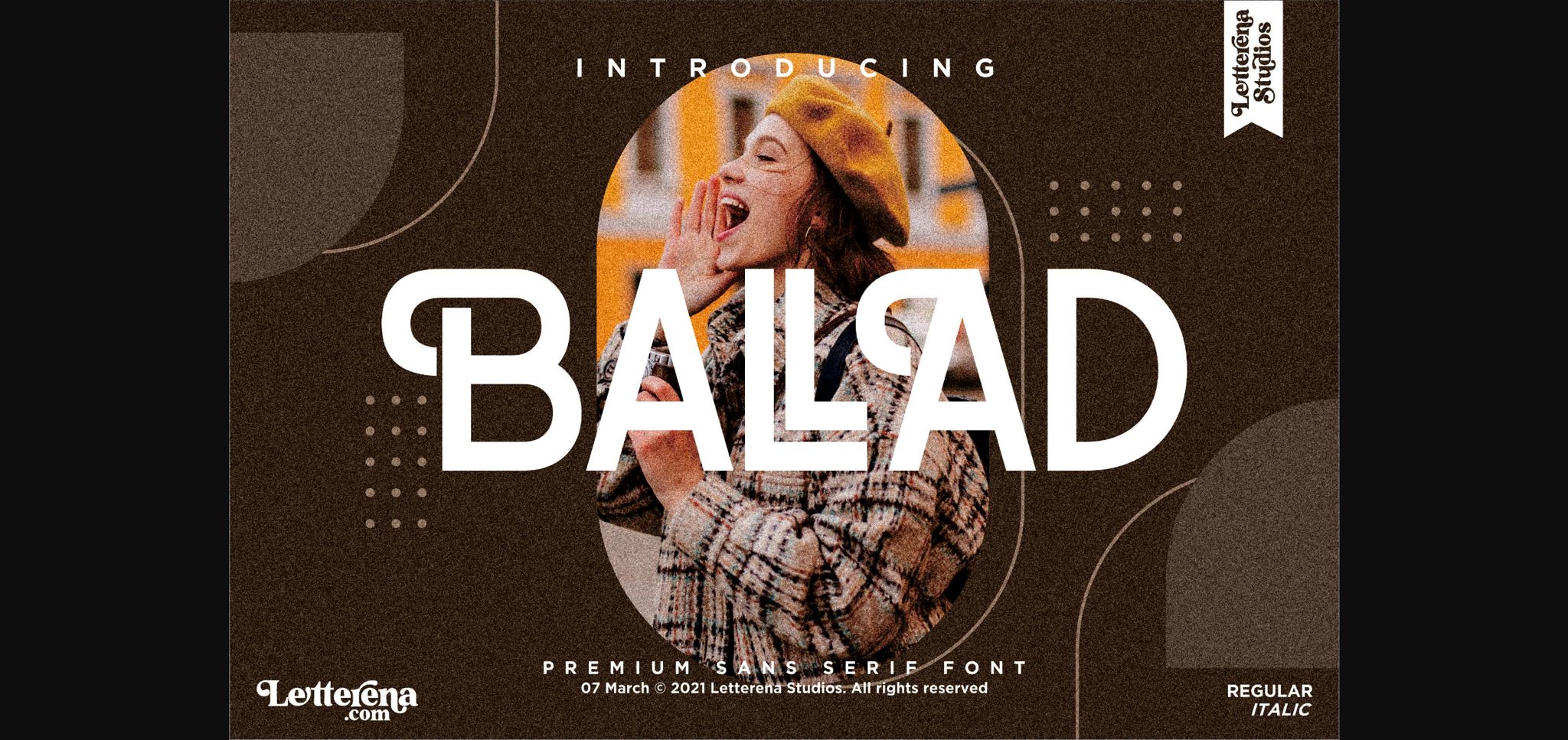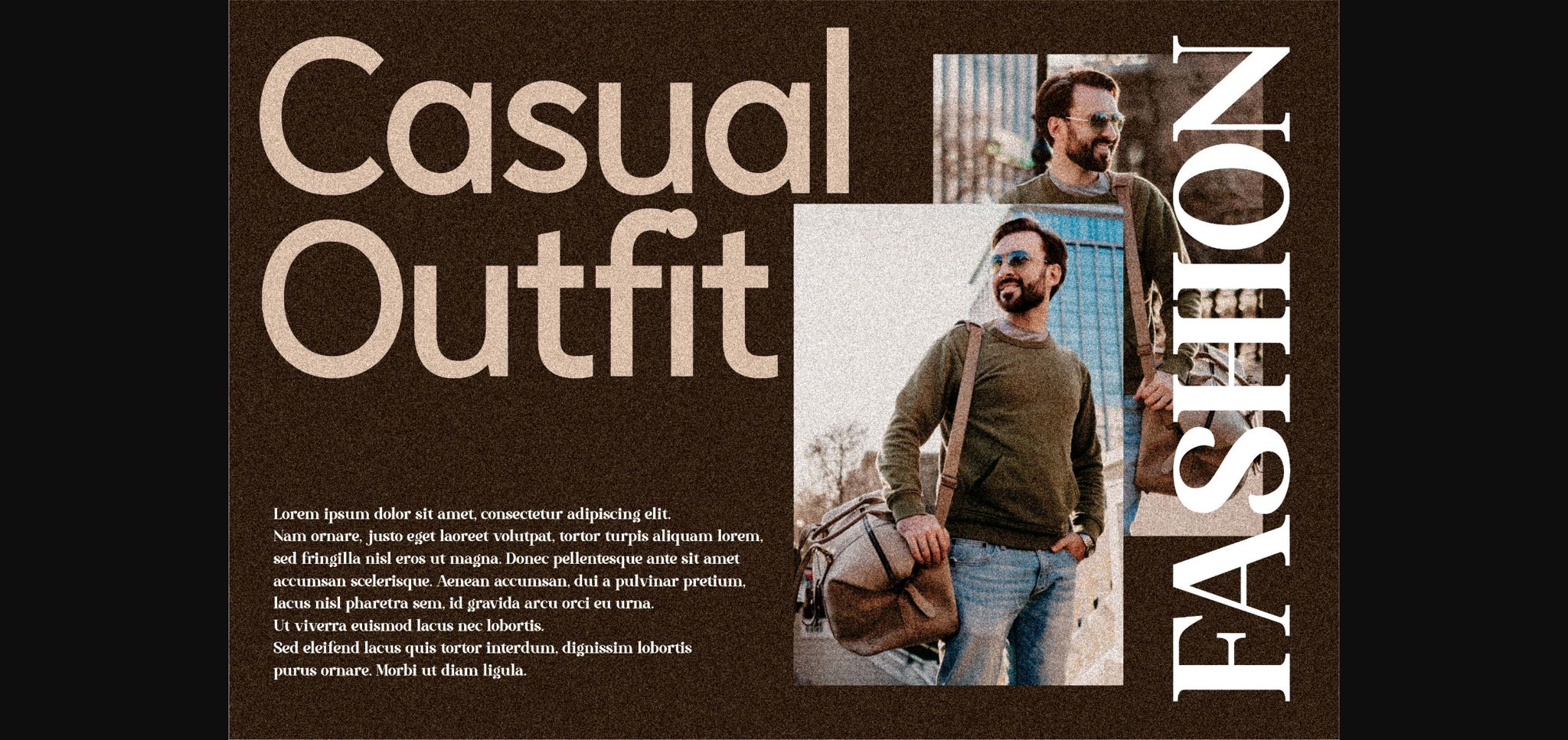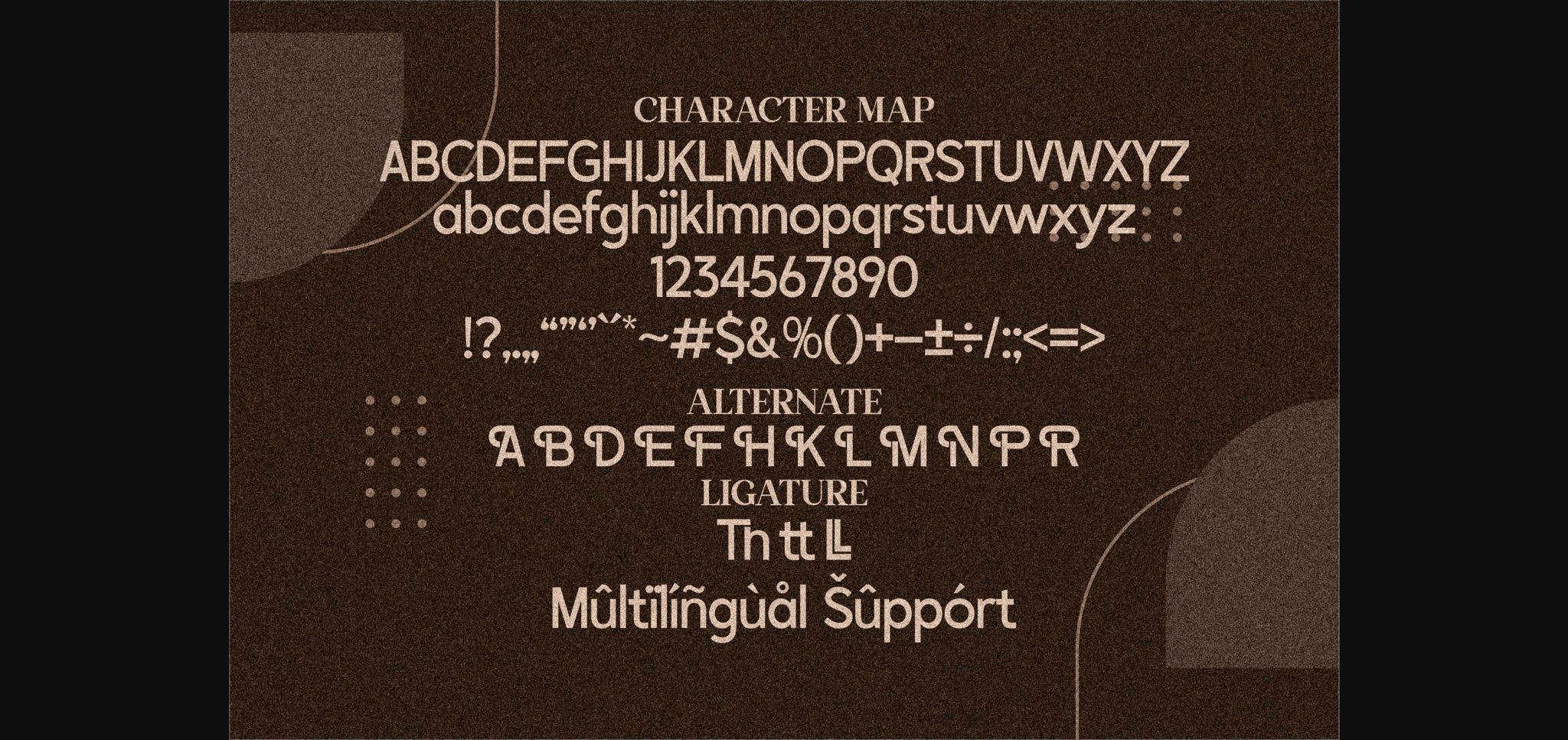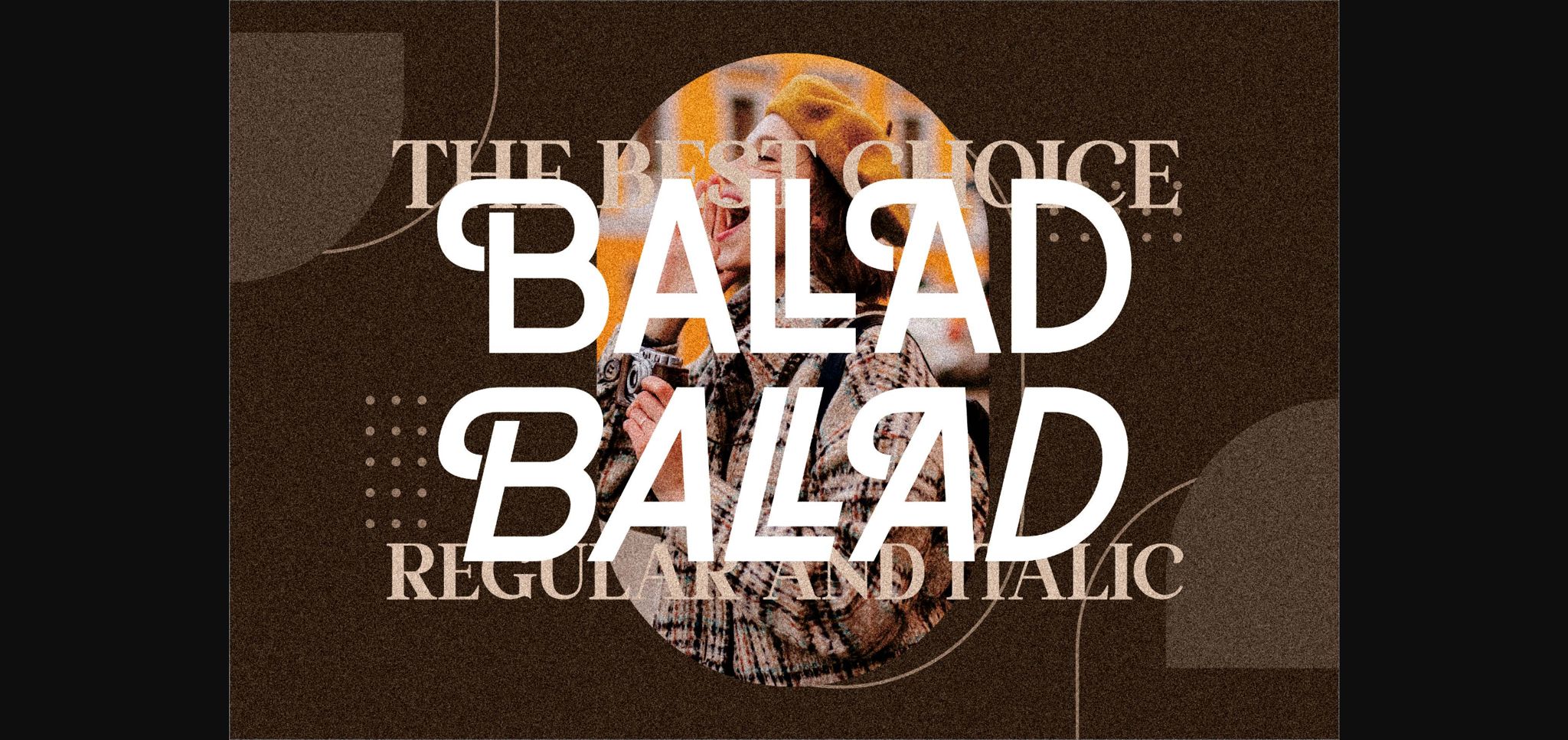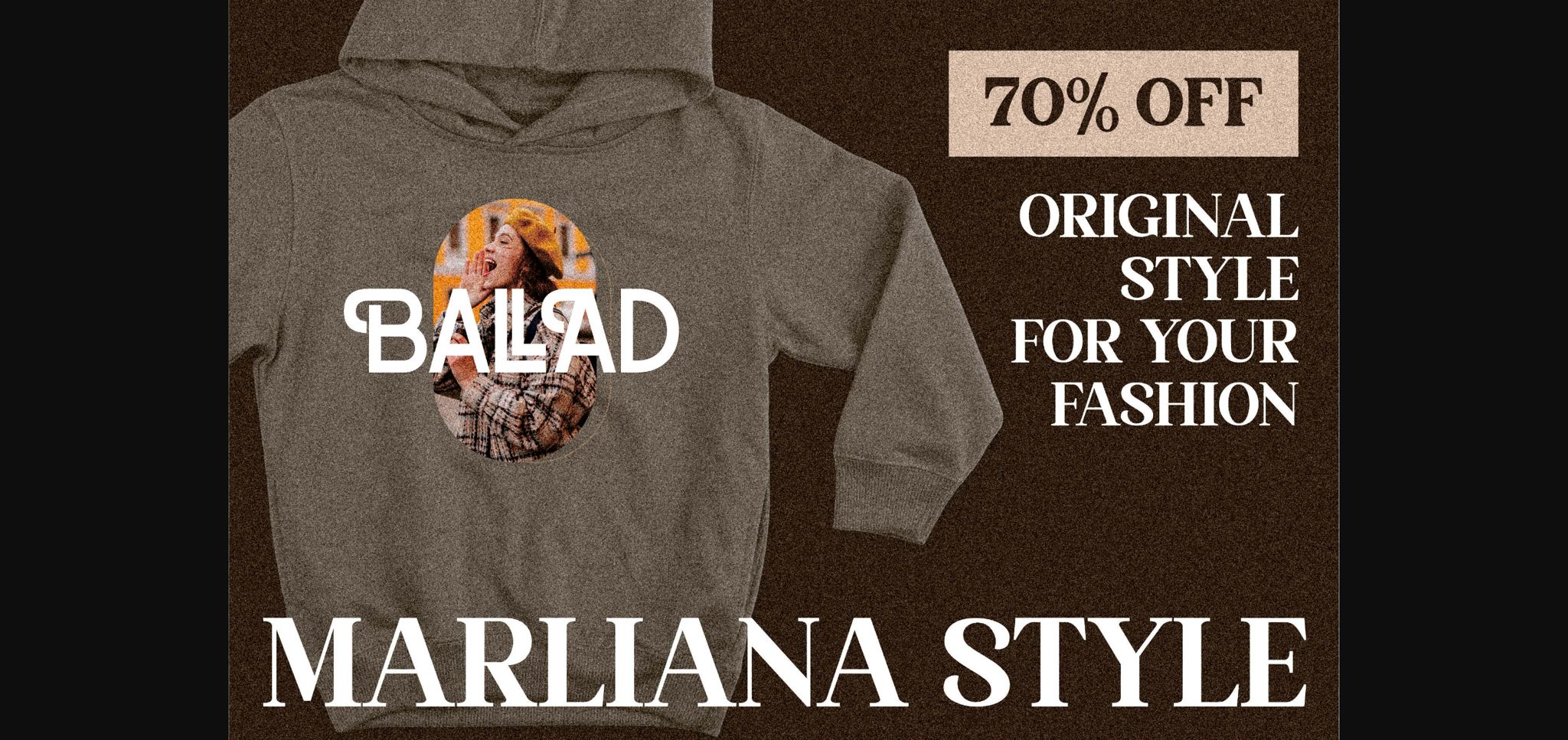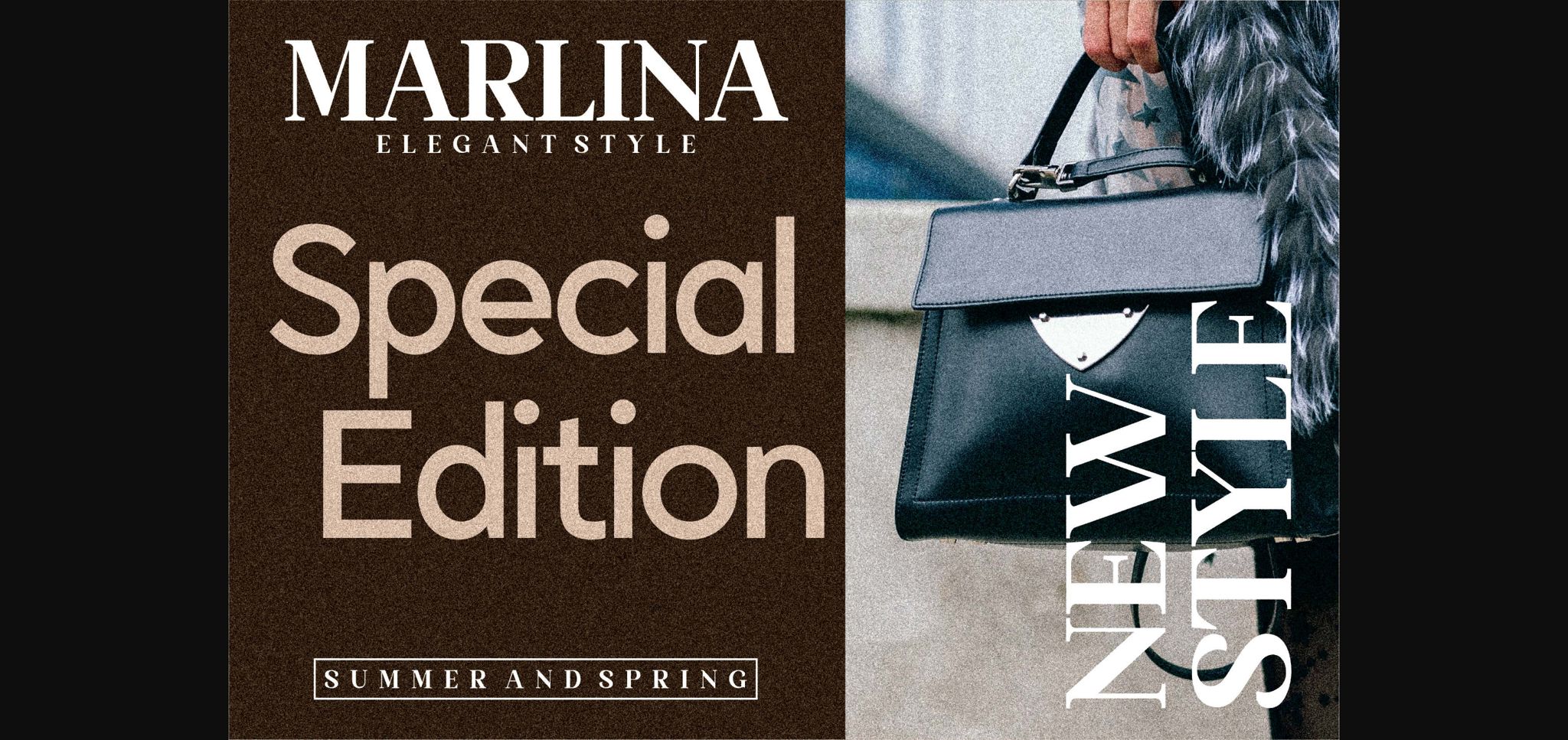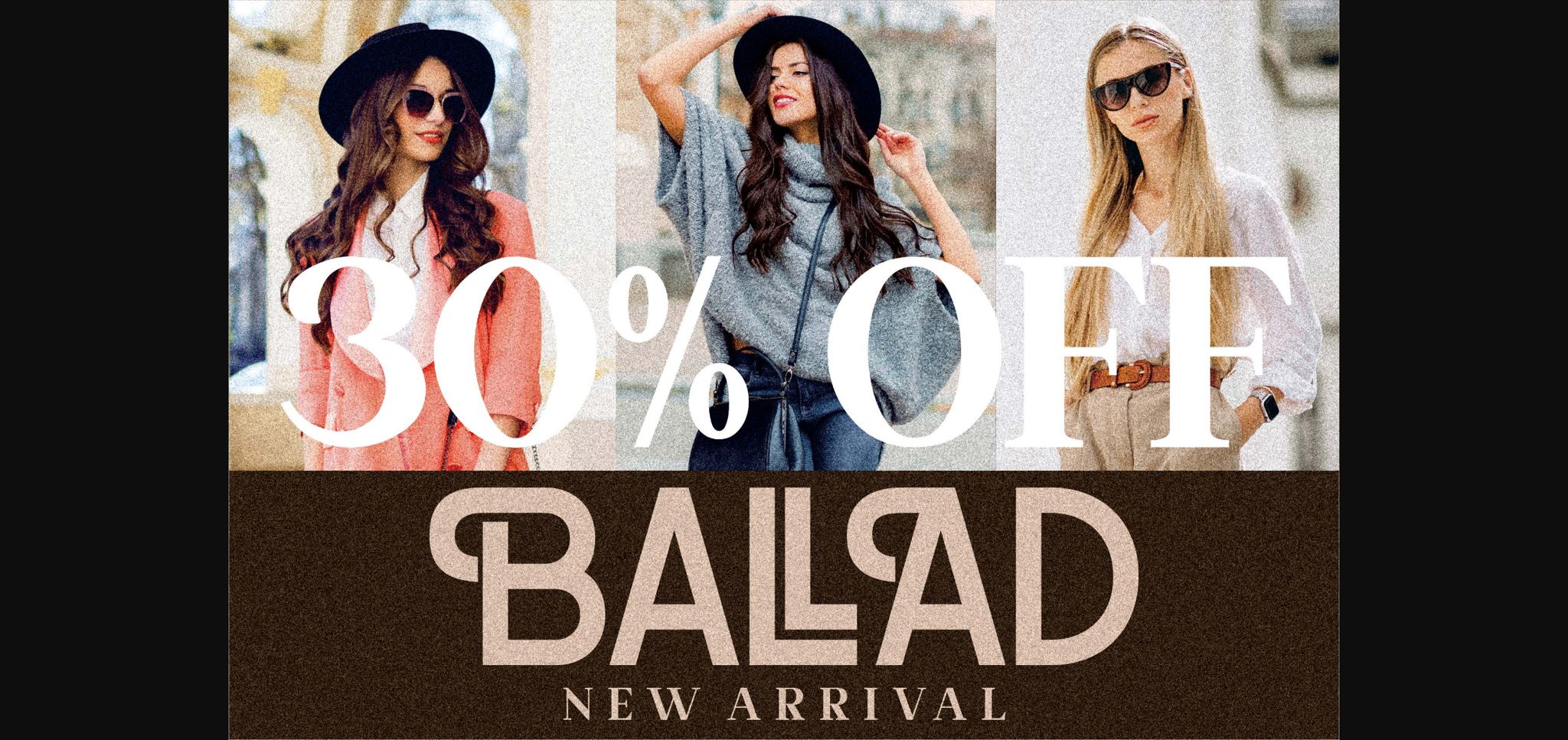
Ballad Font
About Ballad Font
Ballad is an elegant, vintage styled sans serif font. No matter the topic, this font will be an incredibly asset to your fonts’ library, as it has the potential to elevate any creation.